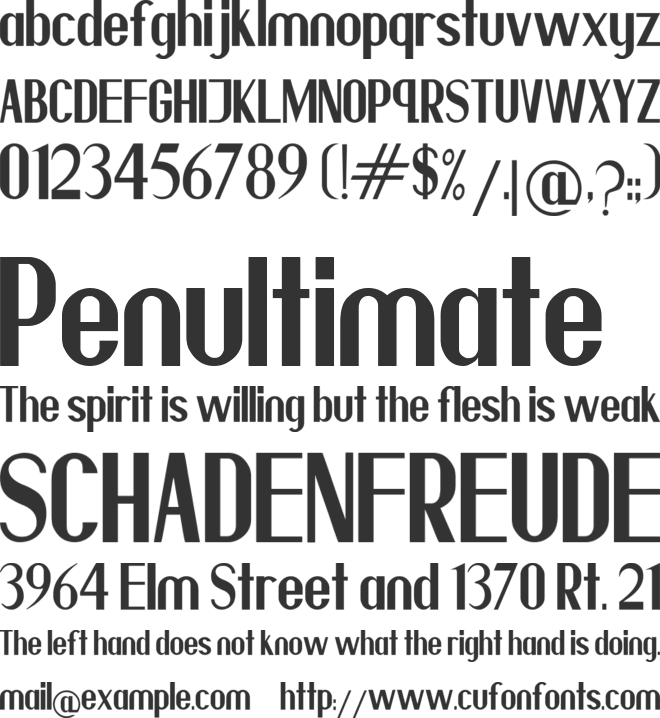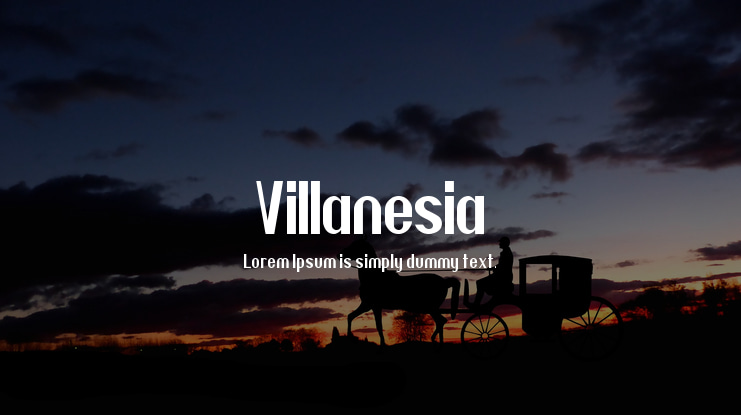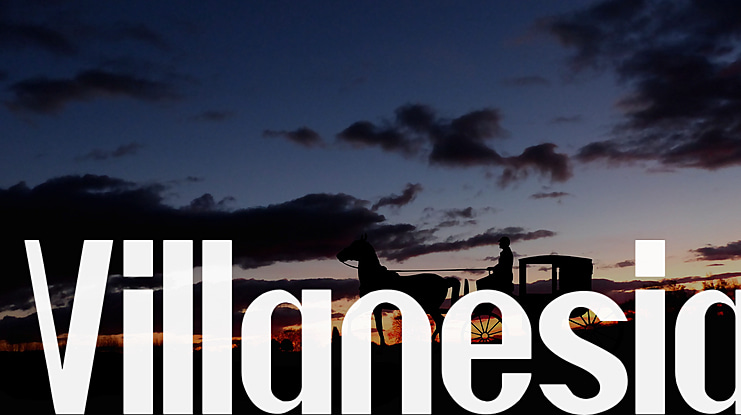
Villanesia Font
Villanesia is created by Artspacce and this font is very suitable for any design needs : branding, logos, quotes, product packaging, merchandise, poster, modern advertising design, Art Quote, Home decor, Book/Cover Title, Invitation, special events, custom mug, pillow, t-shirts, etc.